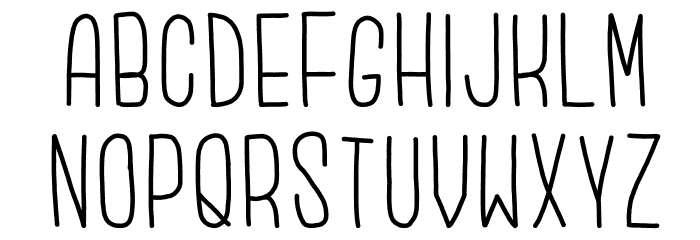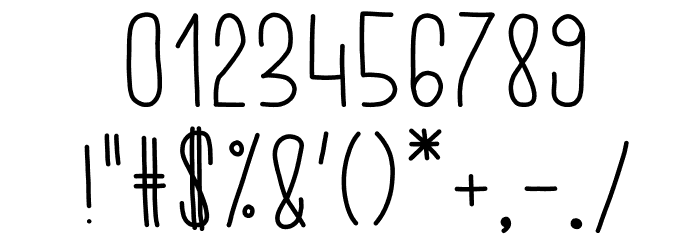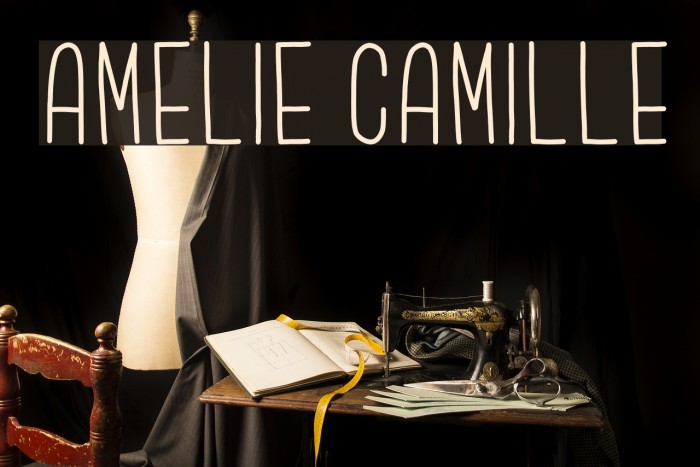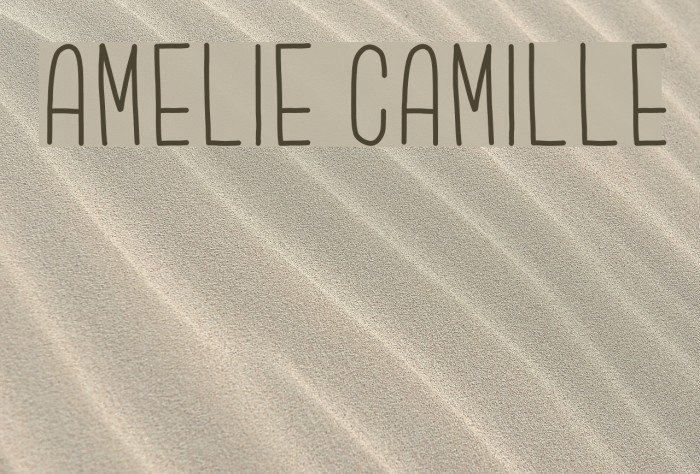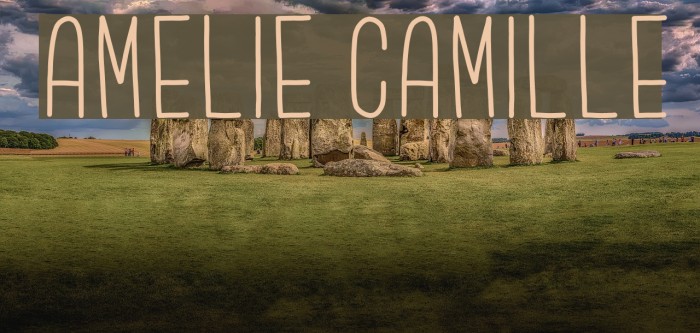
Amelie Camille Font
This font features a playful and casual handwritten style, characterized by its tall, narrow letterforms and slightly irregular strokes. The uppercase and lowercase letters maintain a consistent height, giving it a uniform appearance. The strokes are smooth and rounded, adding a friendly and approachable feel. The numbers and special characters follow the same style, ensuring a cohesive look across all elements. This font's simplicity and charm make it versatile for various design projects.
A playful, handwritten font with tall, narrow letters and smooth strokes.
- Proposed Projects: Ideal for greeting cards, children's books, casual branding, and social media graphics.
- Category: Handwritten
- Overall Style: Casual
- Use Case: Headlines, Logos, Informal Text